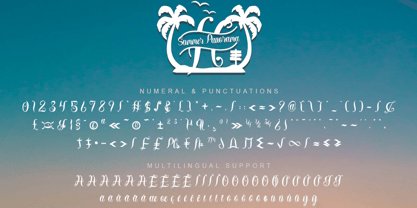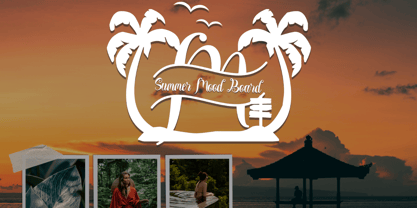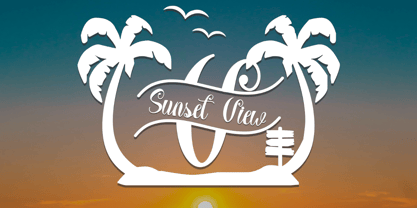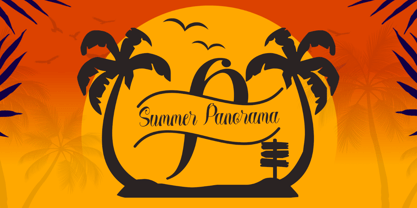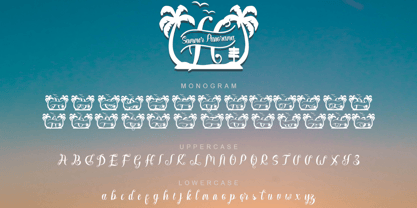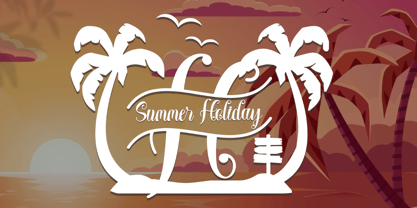
Summer Panorama
by Yoga Letter
The Summer Panorama Font Family was designed by Isroni Yoga Prasetya and published by Yoga Letter. Summer Panorama contains 2 styles. More about this family
"Summer Panorama Monogram" is a beautiful and Elagan monogram font. This font is equipped with monograms, uppercase, lowercase letters, numerals, punctuations and multilingual support. It is suitable for Summer, Spring, Father's Day, Christmas, Wedding, Invitations, Birthday and others.
Designers: Isroni Yoga Prasetya
Foundry: Yoga Letter